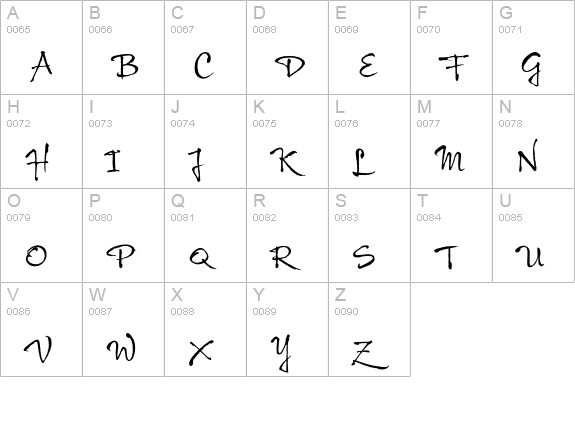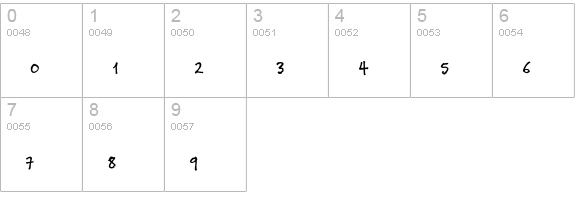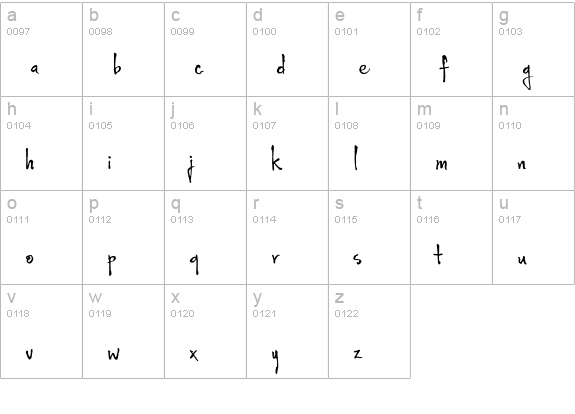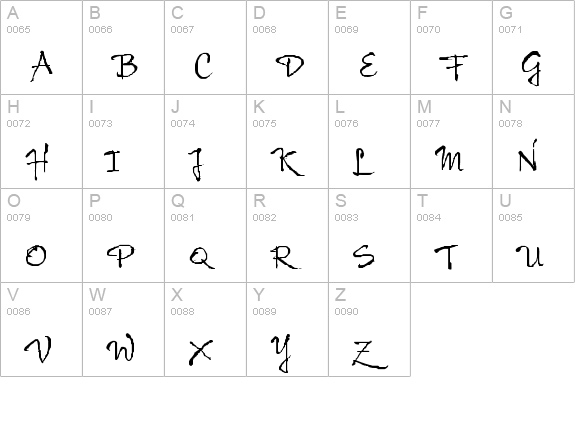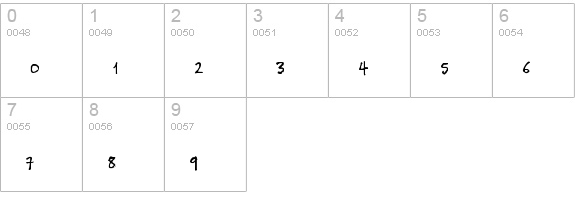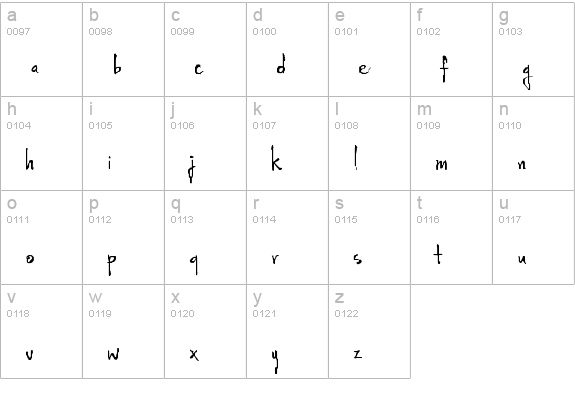
Wild Pen 5 font is a whimsical and playful typeface that exudes a sense of creativity and spontaneity. With its hand-drawn appearance and uneven lines, this font adds a charming and artistic touch to any design project. Whether you're creating invitations, posters, or social media graphics, Wild Pen 5 font will bring a unique flair to your work. The best part about Wild Pen 5 font is that it is completely free to download at FontsMarket.com. This means you can easily add this fun and expressive font to your collection without breaking the bank. Don't miss out on the opportunity to use Wild Pen 5 font to add a touch of personality and creativity to your designs. Download it today and let your imagination run wild!